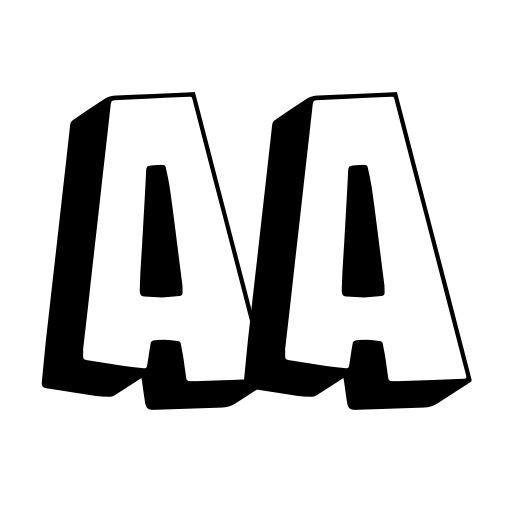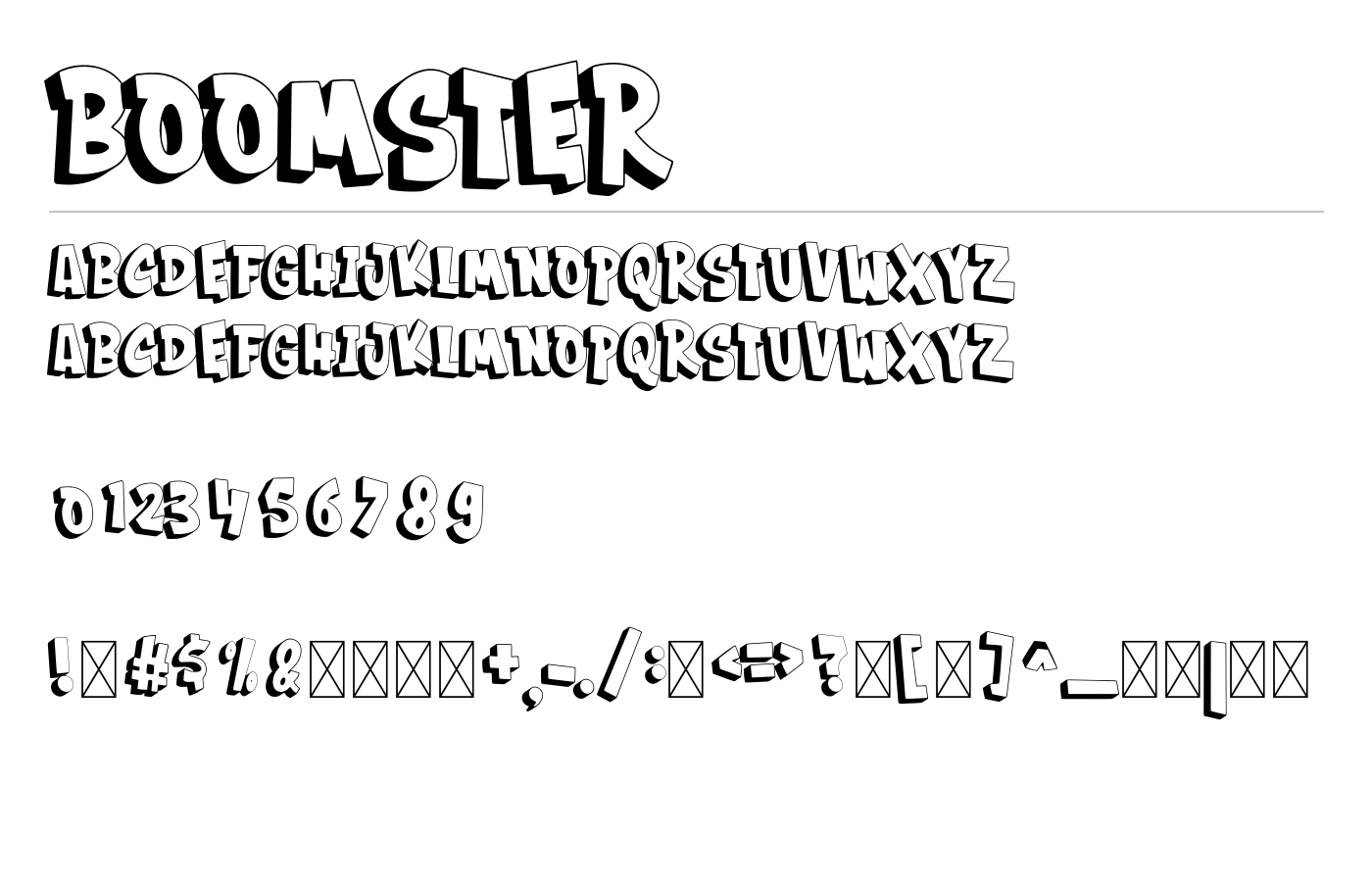
BOOMSTER is a bold, playful display font characterized by thick, chunky letterforms with a fun 3D shadow effect, making it feel dynamic and youthful. Its irregular, hand-drawn style with all uppercase letters creates an energetic vibe perfect for casual and creative designs. This font works well for eye-catching headlines, posters, and branding that aims to convey a lively, informal, and approachable personality.
BOOMSTER Font
About BOOMSTER Font
| Font family | BOOMSTER Font |
| Designer | The Docallisme |